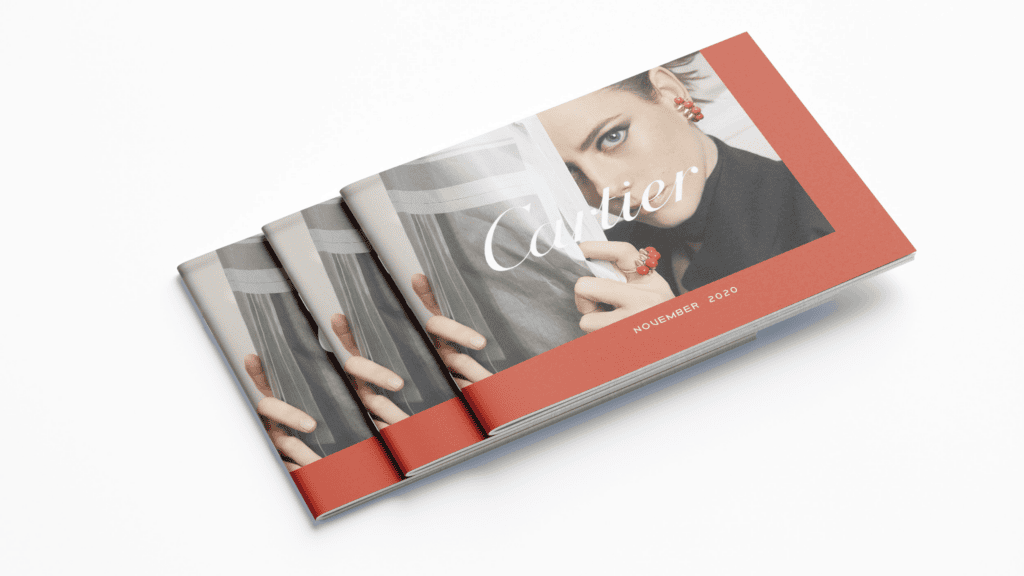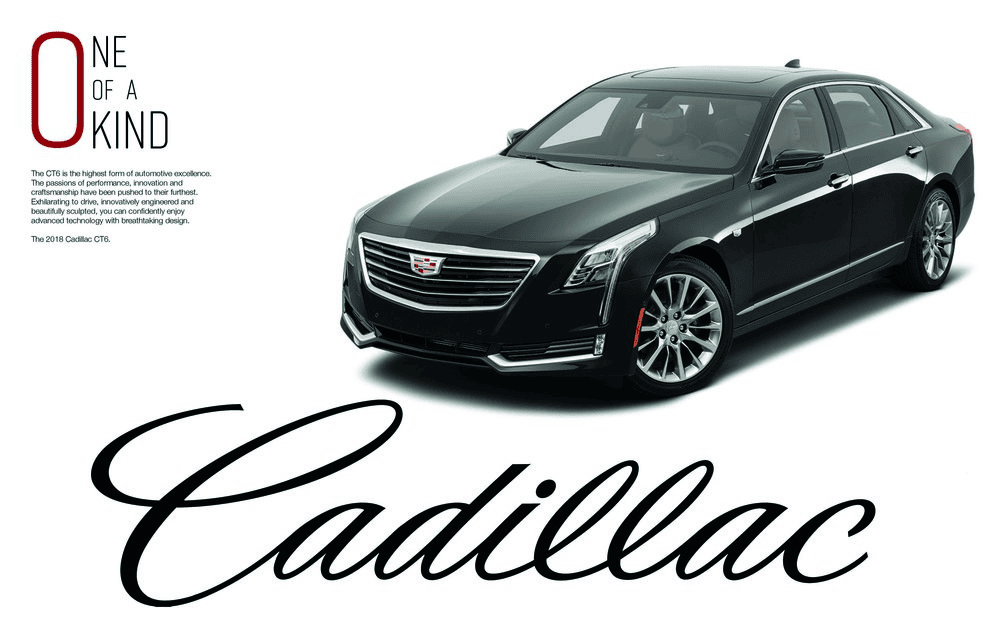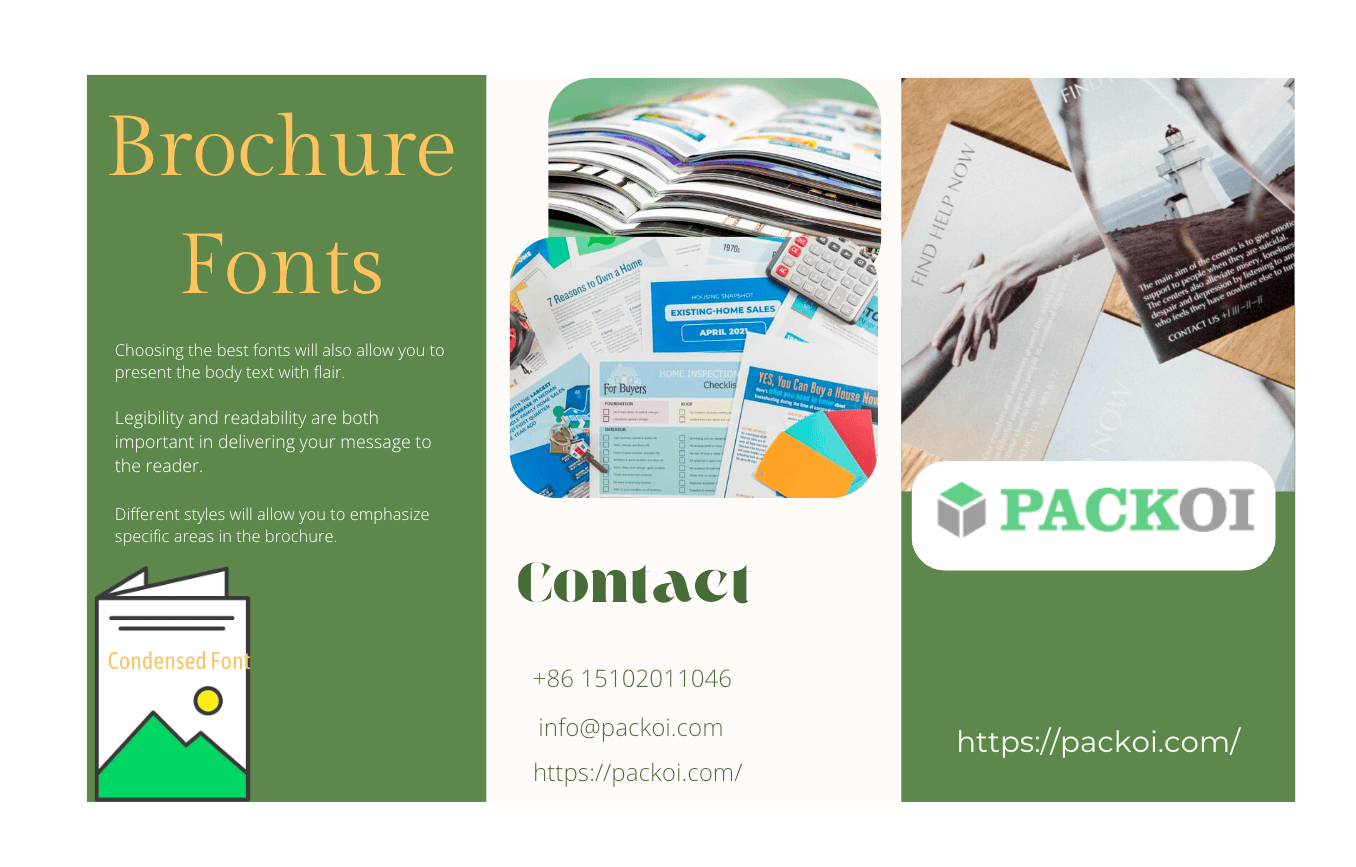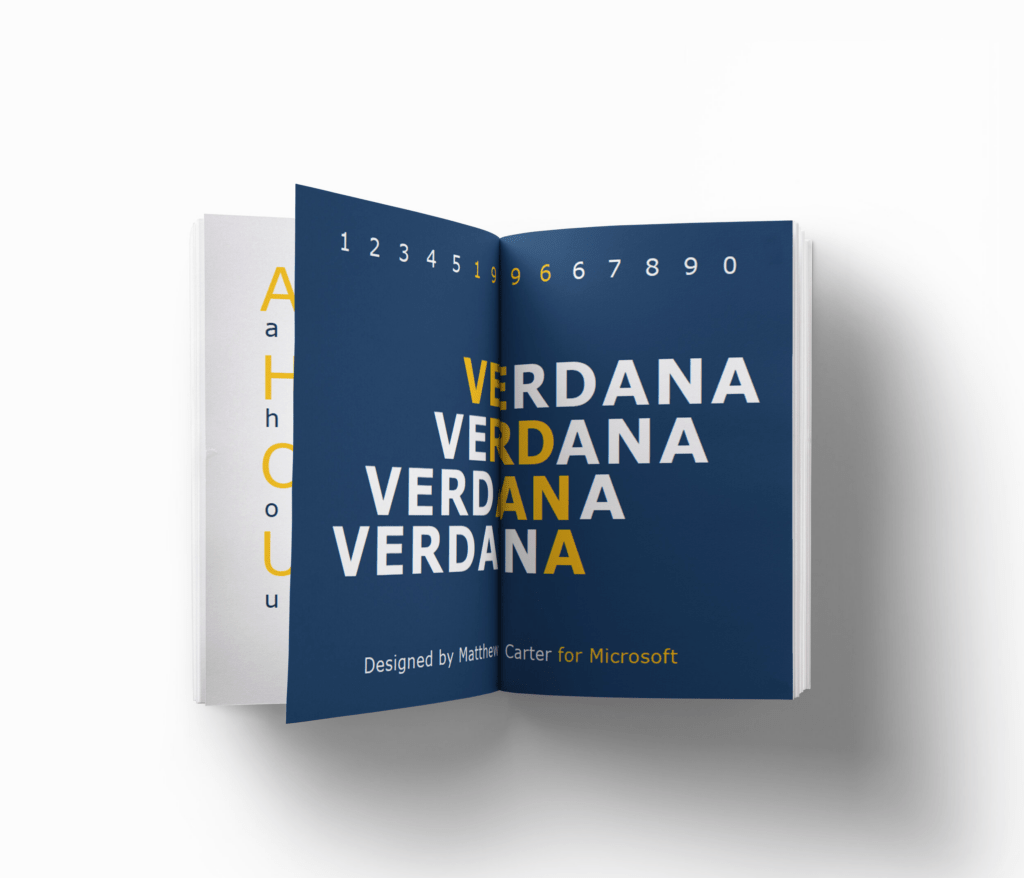
Best Font For Brochure Printing . Get the perfect font for your brochure or flyer. These are some of the widely used and accepted font styles for brochures. Whether you're designing menus, showcasing your work online, or creating event brochures, the right font can enhance your design significantly. Discover the best fonts for brochures to enhance readability, reflect your brand, and engage audiences with our top typeface picks and. Serif fonts work well for titles of brochures, especially when paired with sans serif fonts or the ones without the decorative strokes at. You can take this collection as a guideline to decide which typeface you want to select in your design. Just as the perfect melody sets. Text lies at the heart of flyer and brochure design, and the right font can make that text so. Today, we'll give you some tips on how to choose a font for your brochure, show you some examples of fonts used in brochures, and then share the. The best fonts for brochures and flyers combine distinctive styling with easy readability for a memorable look. One of the most common serif fonts used in print is times new roman.
These are some of the widely used and accepted font styles for brochures. Whether you're designing menus, showcasing your work online, or creating event brochures, the right font can enhance your design significantly. The best fonts for brochures and flyers combine distinctive styling with easy readability for a memorable look. Just as the perfect melody sets. One of the most common serif fonts used in print is times new roman. Today, we'll give you some tips on how to choose a font for your brochure, show you some examples of fonts used in brochures, and then share the. Discover the best fonts for brochures to enhance readability, reflect your brand, and engage audiences with our top typeface picks and. You can take this collection as a guideline to decide which typeface you want to select in your design. Serif fonts work well for titles of brochures, especially when paired with sans serif fonts or the ones without the decorative strokes at. Text lies at the heart of flyer and brochure design, and the right font can make that text so.
Best Font For Brochure Printing Discover the best fonts for brochures to enhance readability, reflect your brand, and engage audiences with our top typeface picks and. You can take this collection as a guideline to decide which typeface you want to select in your design. Text lies at the heart of flyer and brochure design, and the right font can make that text so. Just as the perfect melody sets. Serif fonts work well for titles of brochures, especially when paired with sans serif fonts or the ones without the decorative strokes at. Today, we'll give you some tips on how to choose a font for your brochure, show you some examples of fonts used in brochures, and then share the. The best fonts for brochures and flyers combine distinctive styling with easy readability for a memorable look. Get the perfect font for your brochure or flyer. Whether you're designing menus, showcasing your work online, or creating event brochures, the right font can enhance your design significantly. Discover the best fonts for brochures to enhance readability, reflect your brand, and engage audiences with our top typeface picks and. These are some of the widely used and accepted font styles for brochures. One of the most common serif fonts used in print is times new roman.
10+ Best Fonts for Brochures in 2021 Free and Premium Fonts Best Font For Brochure Printing Today, we'll give you some tips on how to choose a font for your brochure, show you some examples of fonts used in brochures, and then share the. Text lies at the heart of flyer and brochure design, and the right font can make that text so. Whether you're designing menus, showcasing your work online, or creating event brochures, the. Best Font For Brochure Printing.
27 Best Designer Fonts for Brochures & Flyers Best Font For Brochure Printing You can take this collection as a guideline to decide which typeface you want to select in your design. These are some of the widely used and accepted font styles for brochures. The best fonts for brochures and flyers combine distinctive styling with easy readability for a memorable look. Whether you're designing menus, showcasing your work online, or creating event. Best Font For Brochure Printing.
10+ Best Fonts for Brochures in 2021 Free and Premium Fonts Best Font For Brochure Printing Text lies at the heart of flyer and brochure design, and the right font can make that text so. Today, we'll give you some tips on how to choose a font for your brochure, show you some examples of fonts used in brochures, and then share the. Serif fonts work well for titles of brochures, especially when paired with sans. Best Font For Brochure Printing.
10+ Best Fonts for Brochures in 2021 Free and Premium Fonts Best Font For Brochure Printing Just as the perfect melody sets. The best fonts for brochures and flyers combine distinctive styling with easy readability for a memorable look. Get the perfect font for your brochure or flyer. You can take this collection as a guideline to decide which typeface you want to select in your design. Today, we'll give you some tips on how to. Best Font For Brochure Printing.
The Best Fonts for Brochures (with Examples) Envato Tuts+ Best Font For Brochure Printing Just as the perfect melody sets. Serif fonts work well for titles of brochures, especially when paired with sans serif fonts or the ones without the decorative strokes at. Discover the best fonts for brochures to enhance readability, reflect your brand, and engage audiences with our top typeface picks and. One of the most common serif fonts used in print. Best Font For Brochure Printing.
6 Great Fonts for Your Brochures Image Cube Best Font For Brochure Printing Text lies at the heart of flyer and brochure design, and the right font can make that text so. Serif fonts work well for titles of brochures, especially when paired with sans serif fonts or the ones without the decorative strokes at. You can take this collection as a guideline to decide which typeface you want to select in your. Best Font For Brochure Printing.
The Ultimate Guide to Choosing the Best Fonts for Brochure Printing Best Font For Brochure Printing One of the most common serif fonts used in print is times new roman. Text lies at the heart of flyer and brochure design, and the right font can make that text so. These are some of the widely used and accepted font styles for brochures. Get the perfect font for your brochure or flyer. You can take this collection. Best Font For Brochure Printing.
10+ Best Fonts for Brochures in 2021 Free and Premium Fonts Best Font For Brochure Printing Text lies at the heart of flyer and brochure design, and the right font can make that text so. Serif fonts work well for titles of brochures, especially when paired with sans serif fonts or the ones without the decorative strokes at. Today, we'll give you some tips on how to choose a font for your brochure, show you some. Best Font For Brochure Printing.
10 Best Fonts for Brilliant Brochures Best Font For Brochure Printing Just as the perfect melody sets. You can take this collection as a guideline to decide which typeface you want to select in your design. One of the most common serif fonts used in print is times new roman. Serif fonts work well for titles of brochures, especially when paired with sans serif fonts or the ones without the decorative. Best Font For Brochure Printing.